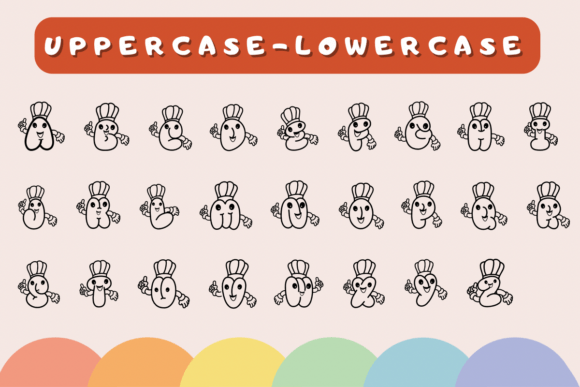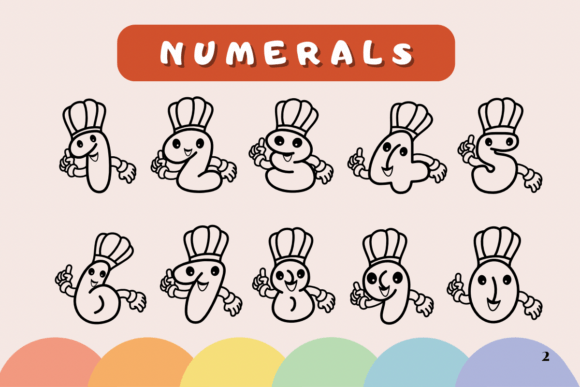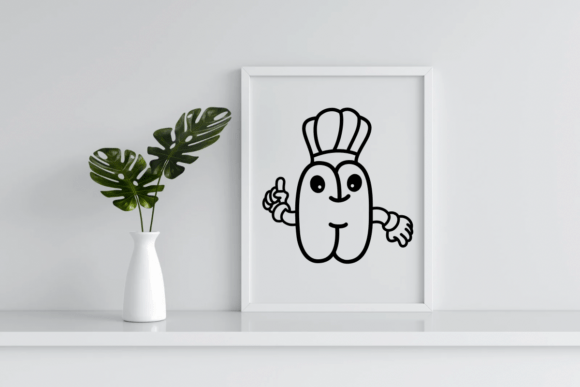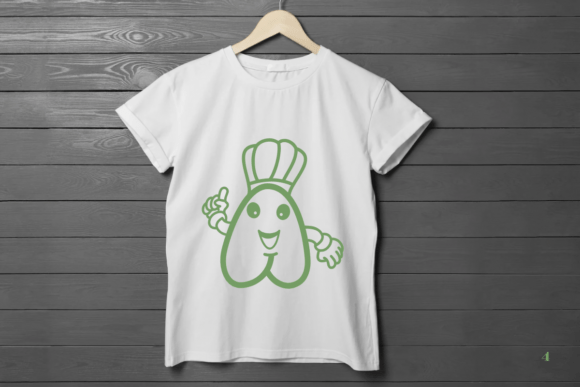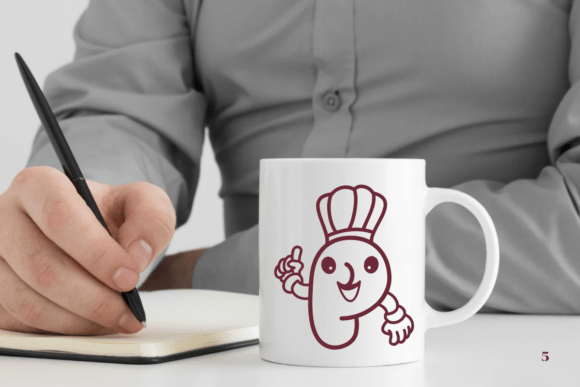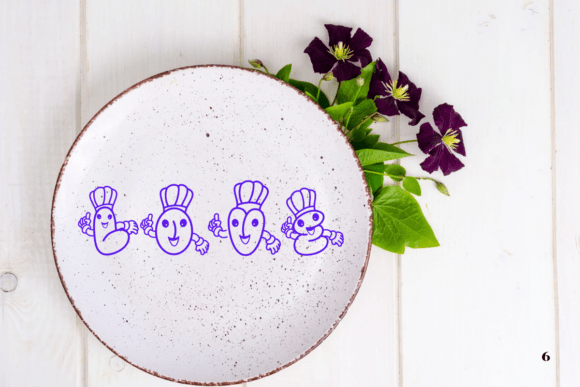
Introducing Happy Letter Cooks Font: Add a Dash of Whimsy to Your Designs
Are you a designer, crafter, or DIY enthusiast looking for a font that can add a touch of personality to your projects? Look no further than Happy Letter Cooks, a delightful decorative font that’s perfect for a wide range of applications. In this article, we’ll explore the features and benefits of Happy Letter Cooks, and show you can use it to elevate your designs and make them stand out.
What is Happy Letter Cooks Font?
Happy Letter Cooks is a decorative font that’s designed to bring a smile to your face. Its quirky, hand-crafted style is reminiscent of handwritten notes and recipes, making it perfect for personal and commercial projects alike. Whether you’re creating content for social media, designing greeting cards, or making custom stationery, Happy Letter Cooks is the ideal choice.
Uses for Happy Letter Cooks Font
One of the best things about Happy Letter Cooks is its versatility. This font can be used for a wide range of projects, including:
- Note-taking and journaling: Add a personal touch to your notes and journals with Happy Letter Cooks’ playful style.
- Greeting cards: Create cheerful and eye-catching greeting cards for special occasions.
- Banners and signs: Use Happy Letter Cooks to create eye-catching banners and signs for events, parties, or promotions.
- Social media posts: Add a dash of whimsy to your social media posts and make them stand out.
- Merchandise: Use Happy Letter Cooks to create custom mugs, shirts, and other merchandise.
- Stationery: Design custom stationery, including notebooks, journals, and letterheads.
Why Choose Happy Letter Cooks Font?
So why choose Happy Letter Cooks over other fonts? Here are just a few reasons:
- Unique style: Happy Letter Cooks has a one-of-a-kind style that’s sure to grab attention.
- Readability: Despite its decorative nature, Happy Letter Cooks is surprisingly readable, making it perfect for both digital and print formats.
- Versatility: This font can be used for a wide range of projects, from personal to commercial.
Tips for Using Happy Letter Cooks Font
Here are a few tips for getting the most out of Happy Letter Cooks:
- Experiment with sizes: Happy Letter Cooks looks great in a variety of sizes, from small to large.
- Pair with other fonts: Try pairing Happy Letter Cooks with other fonts to create interesting and dynamic text combinations.
- Use for headings and titles: Happy Letter Cooks is perfect for headings and titles, adding a touch of personality to your designs.
- Don’t be afraid to get creative: Happy Letter Cooks is a versatile font that can be used in many different ways, so don’t be afraid to experiment and try new things.
In conclusion, Happy Letter Cooks is a delightful decorative font that’s perfect for designers, crafters, and DIY enthusiasts. Its unique style, readability, and versatility make it an ideal choice for a wide range of projects, from personal to commercial. Whether you’re creating content for social media, designing greeting cards, or making custom stationery, Happy Letter Cooks is sure to add a dash of whimsy and personality to your designs. So why not give it a try and see the difference it can make?